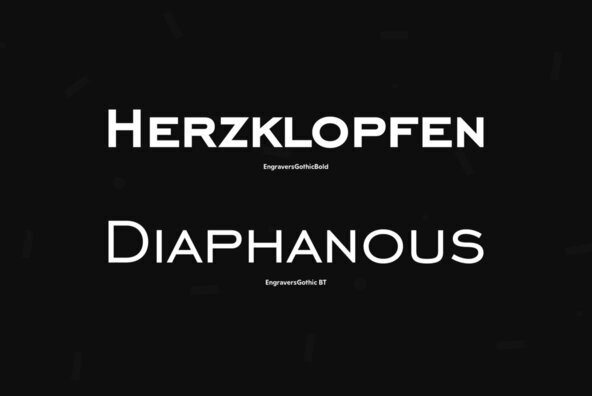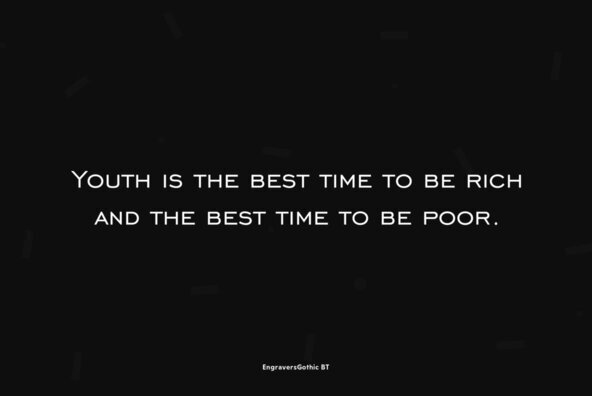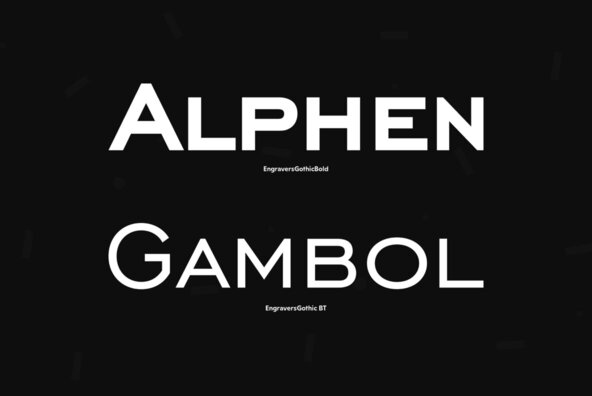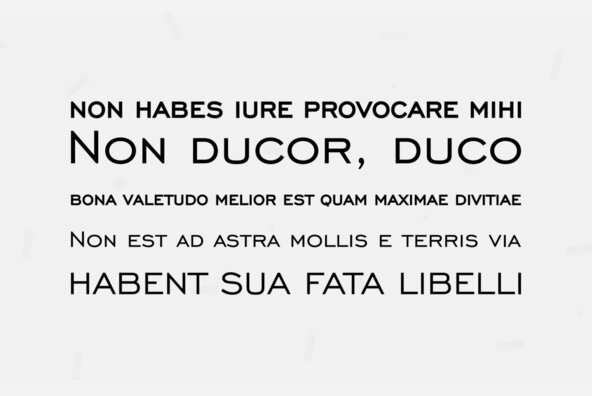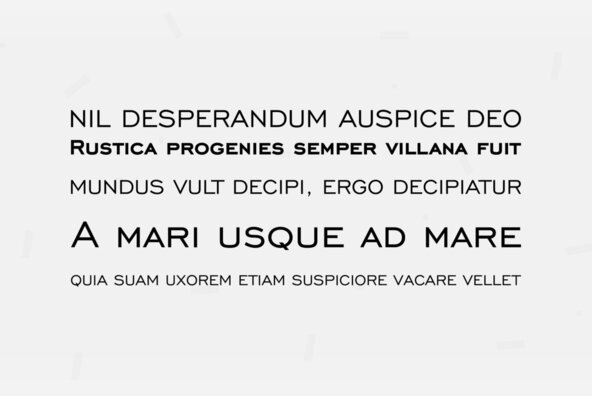
Designed at Bitstream. An old extended Grotesque. For use in advertising and display typography. Cyrillic version with adding Bold style created for ParaType in 2003 by Isabella Chaeva.